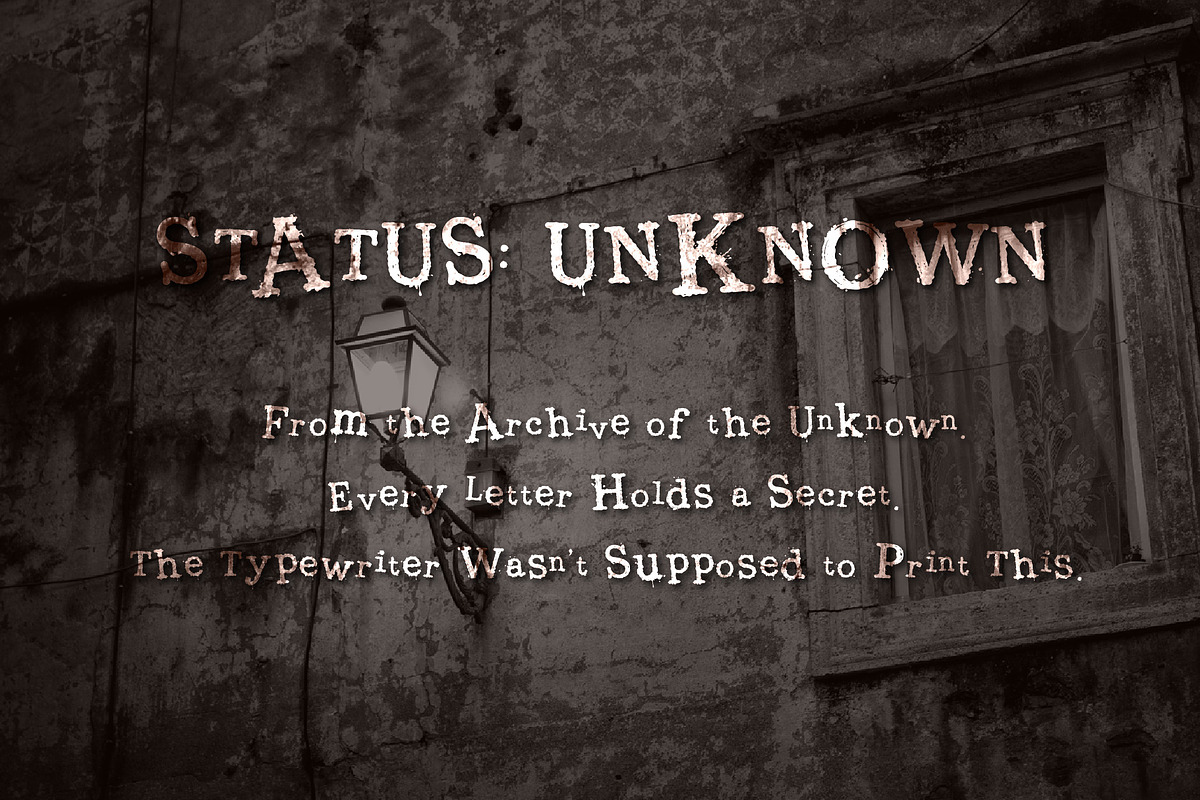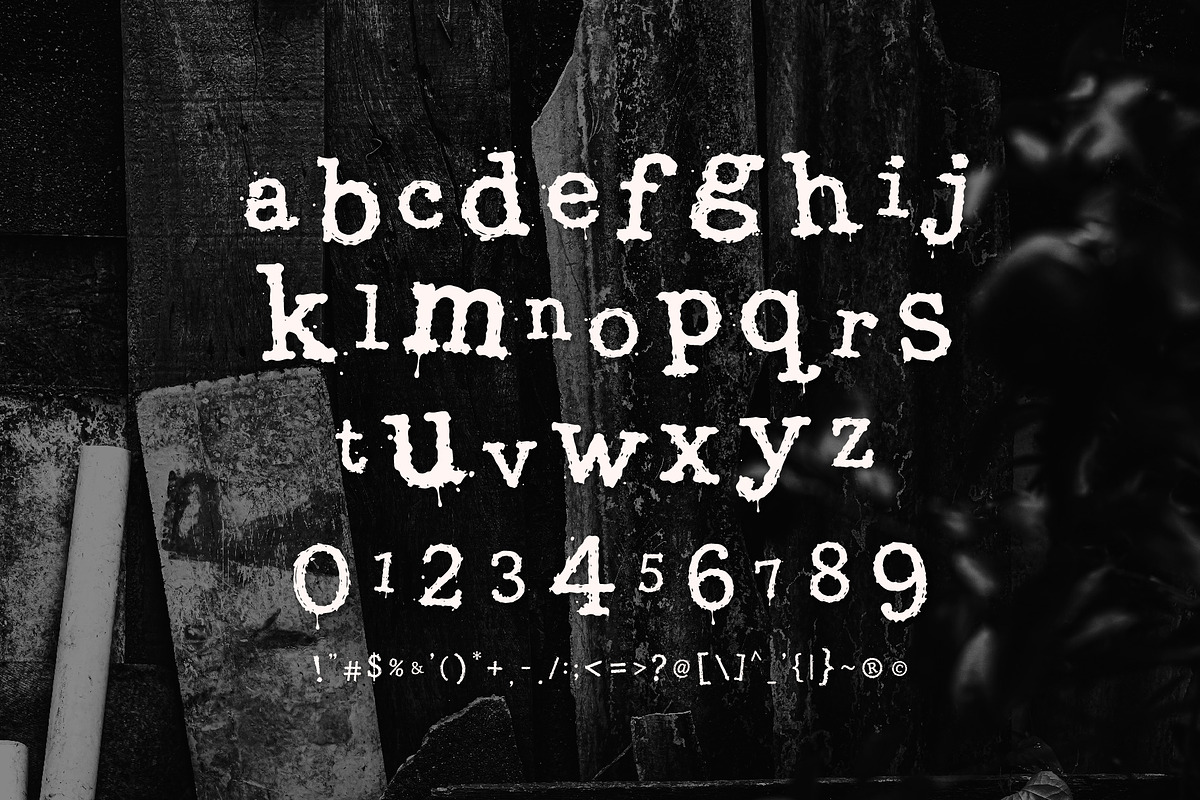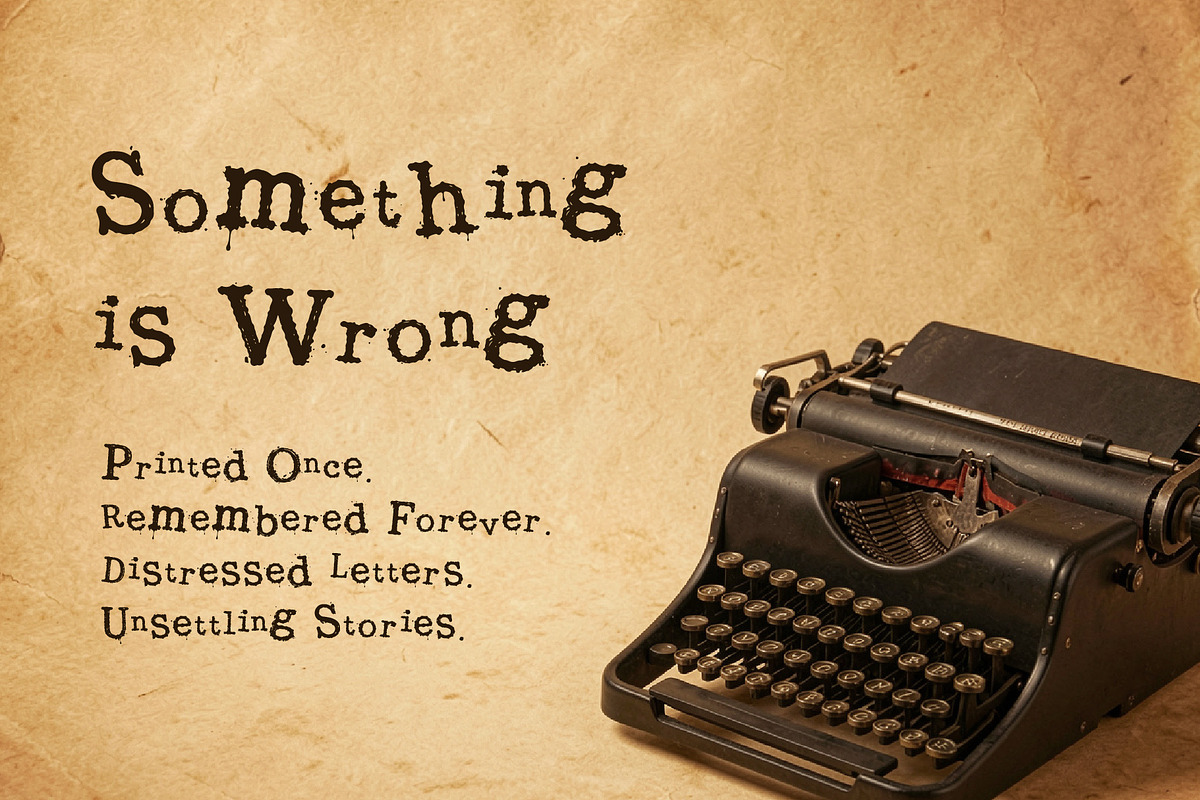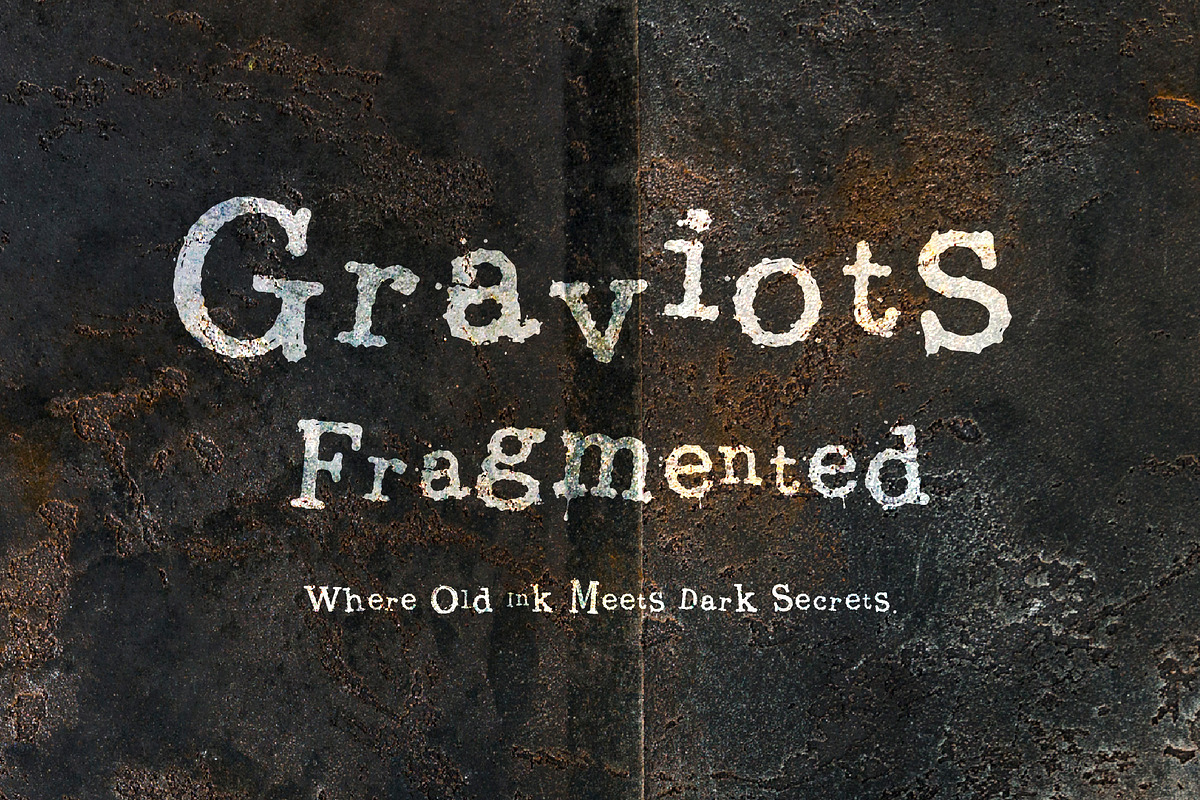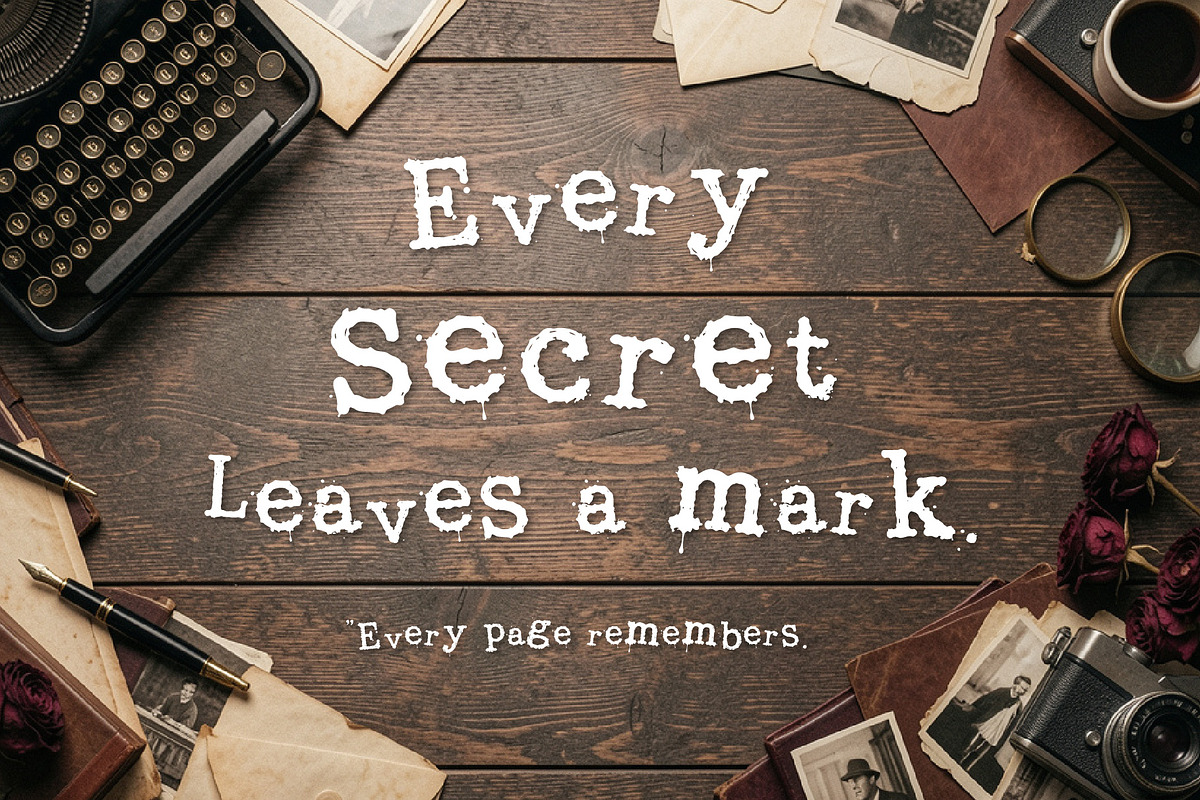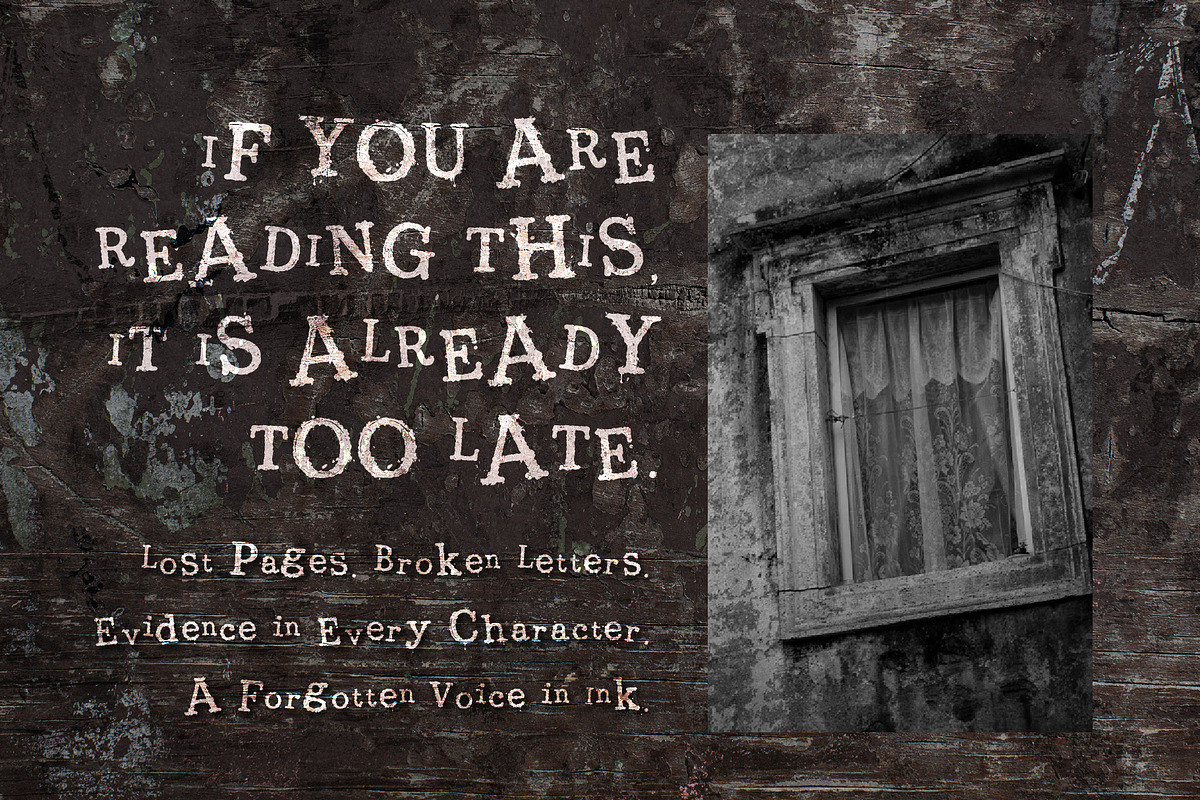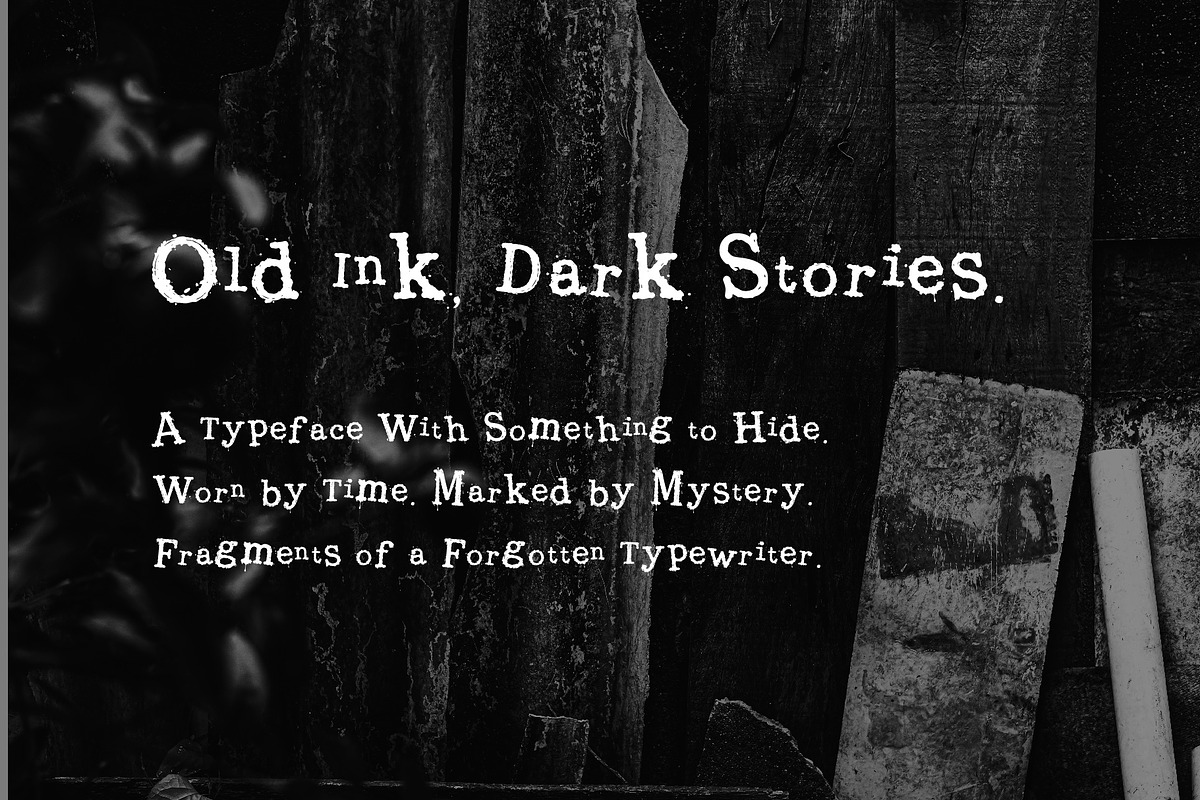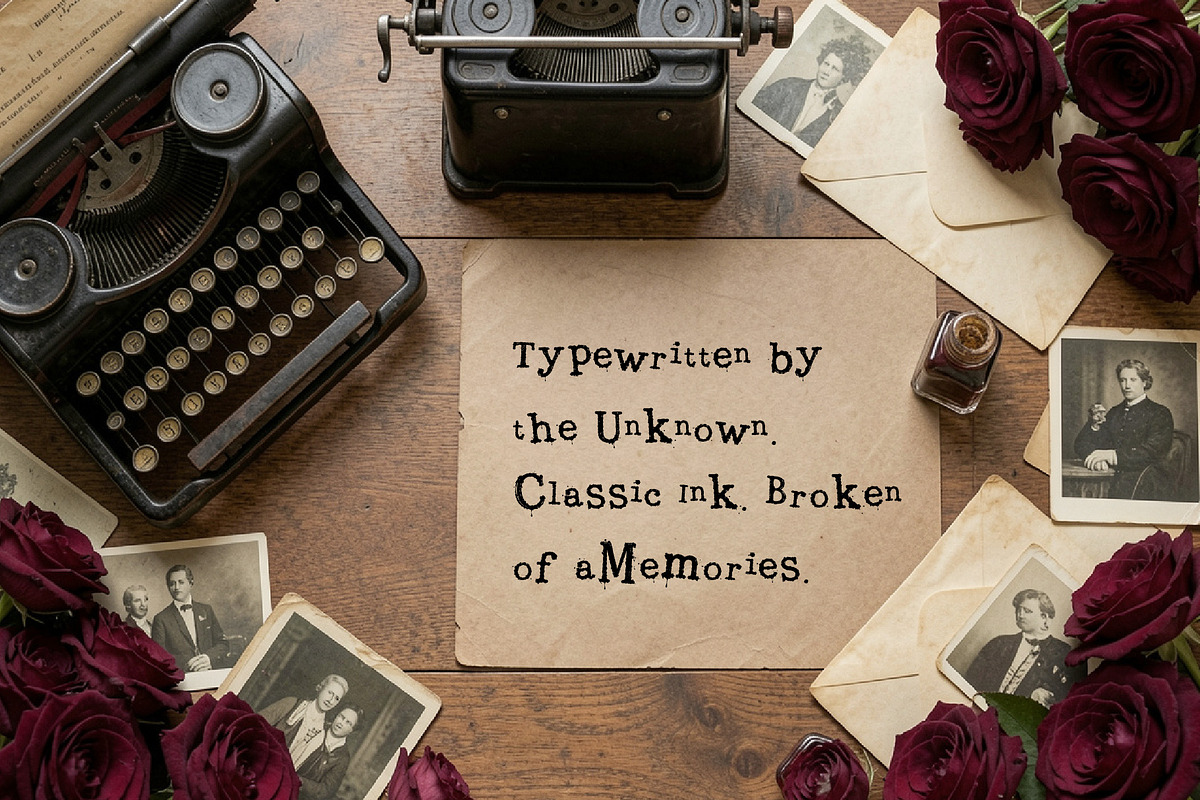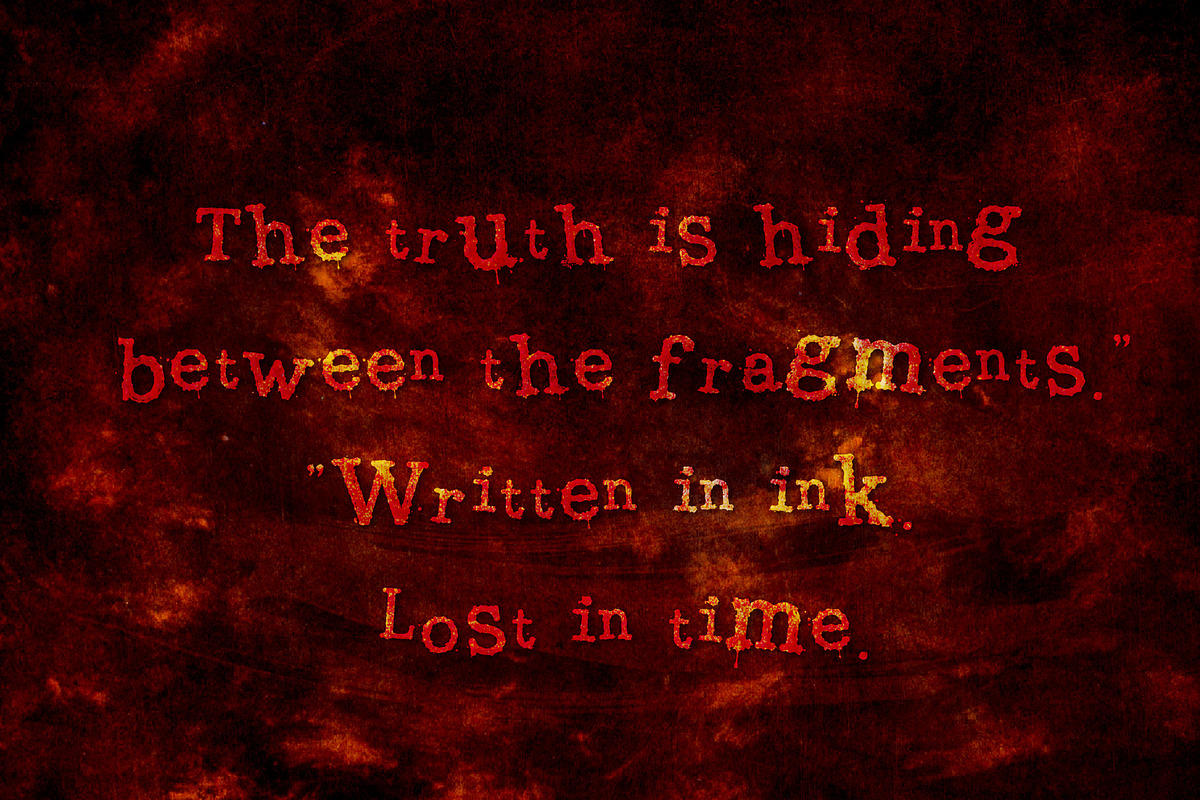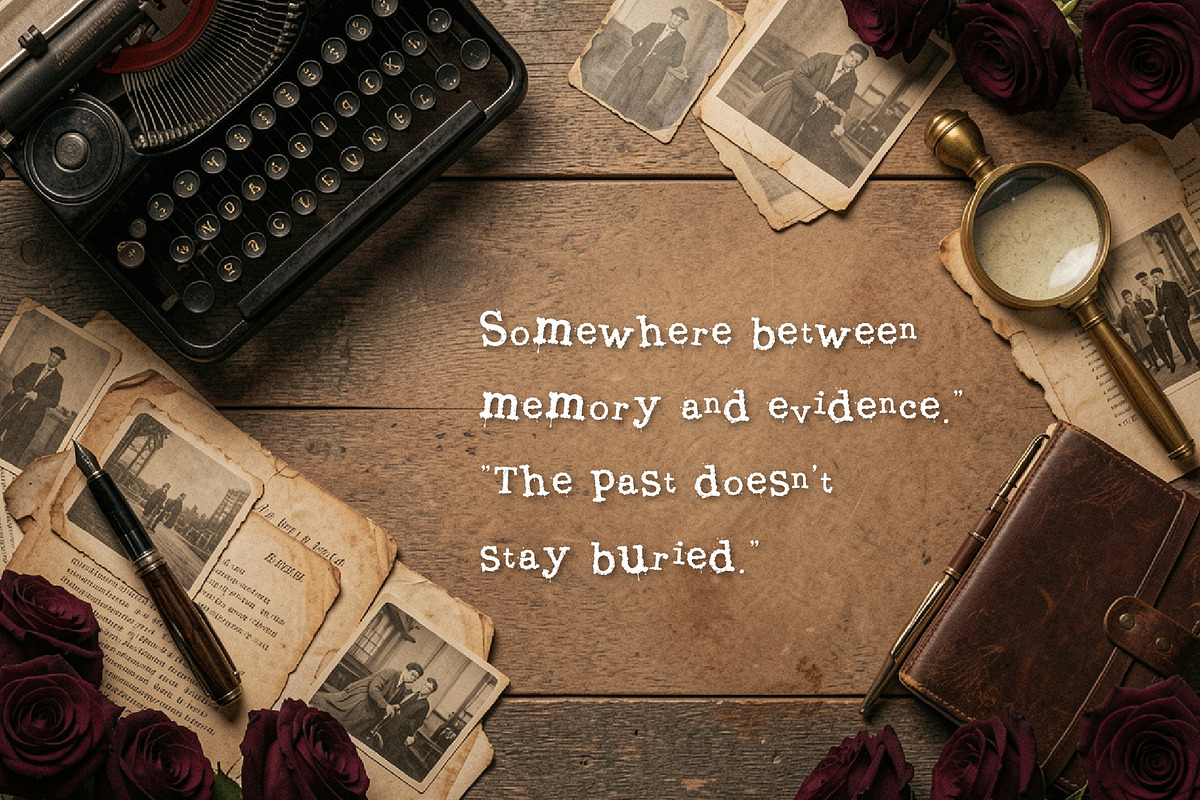
Graviots Fragmented - Broken Letters
Graviots Fragmented is a classic distressed display typeface that combines the character of an old typewriter with fragmented ink, worn printing, and unsettling imperfections.
Its rugged serif shapes, broken edges, scattered ink marks, and irregular texture create an authentic archival, mysterious, and slightly disturbing atmosphere.
Designed for projects that need an aged and unpredictable personality, Graviots Fragmented works beautifully for horror games, thriller titles, mystery projects, movie posters, retro graphics, book covers, editorial artwork, logos, album artwork, merchandise, and cinematic typography.
Whether you're creating a forgotten case file, an abandoned investigation, a psychological thriller title, or the opening screen of a creepy game, Graviots Fragmented brings that "something is seriously wrong here" energy.
Graviots Fragmented - classic typewriter character, corrupted by time.